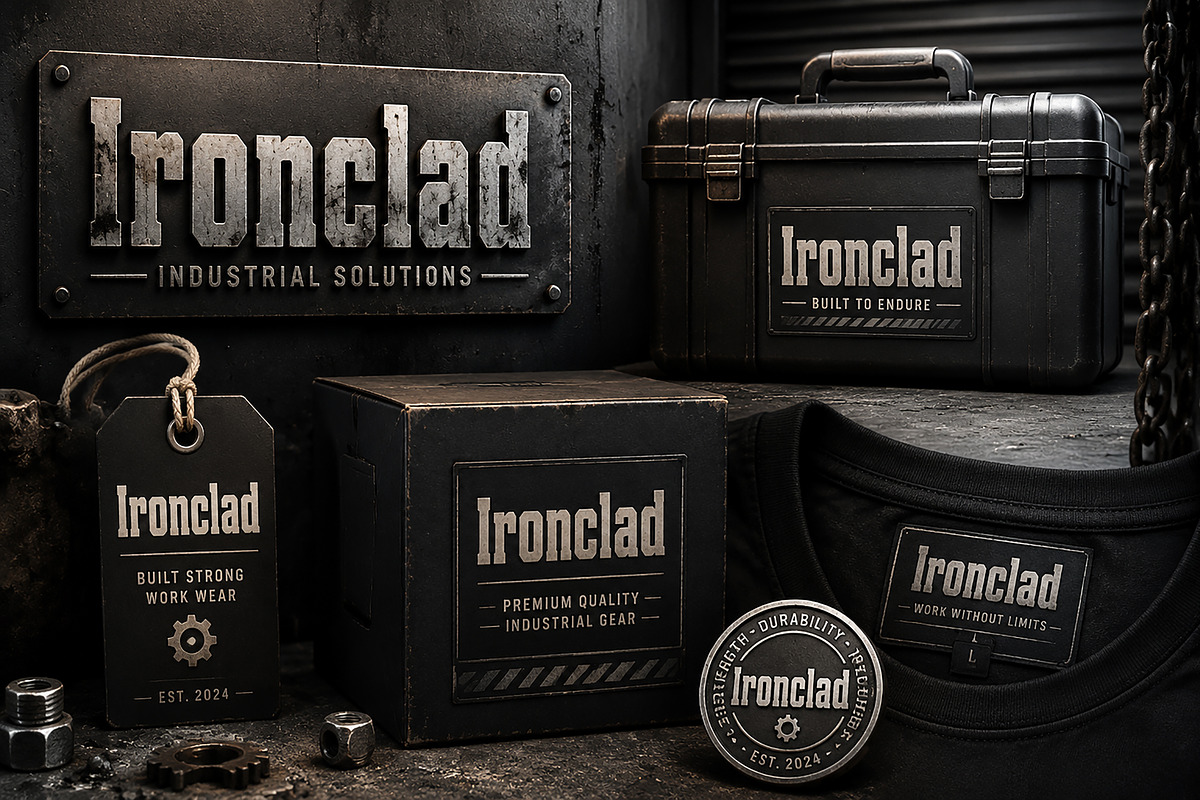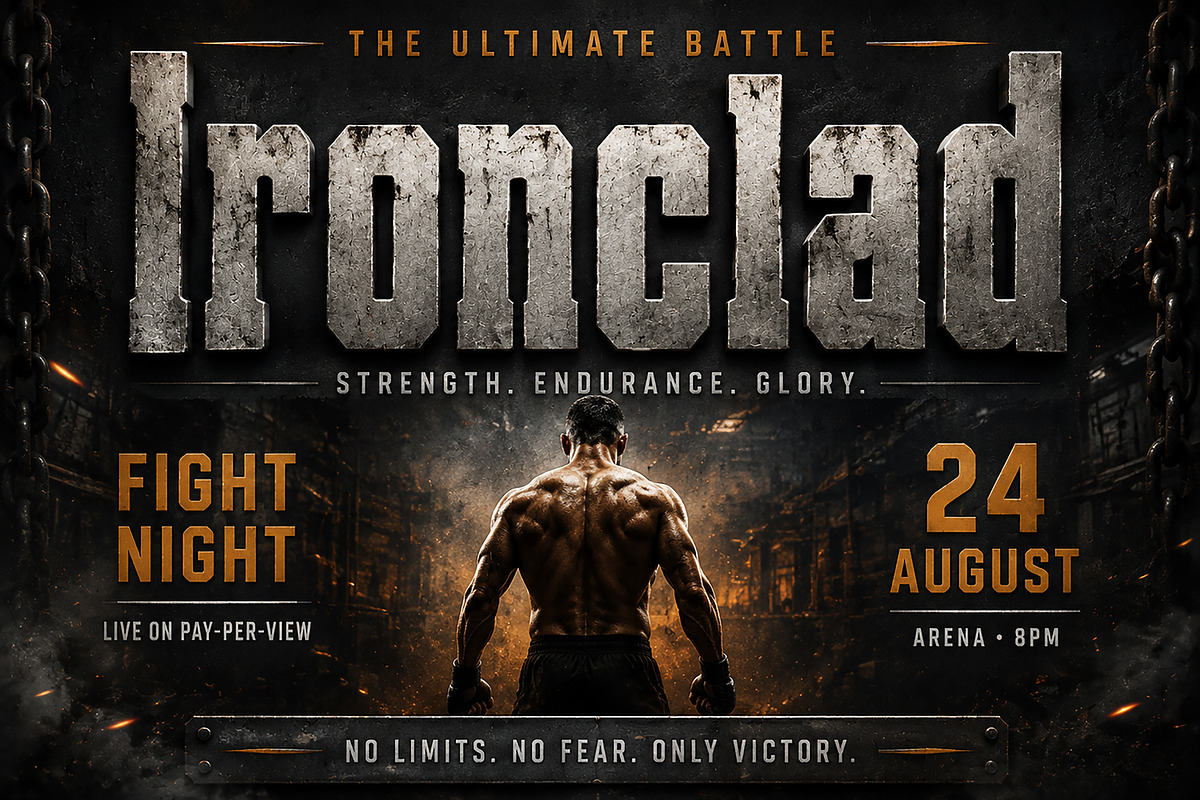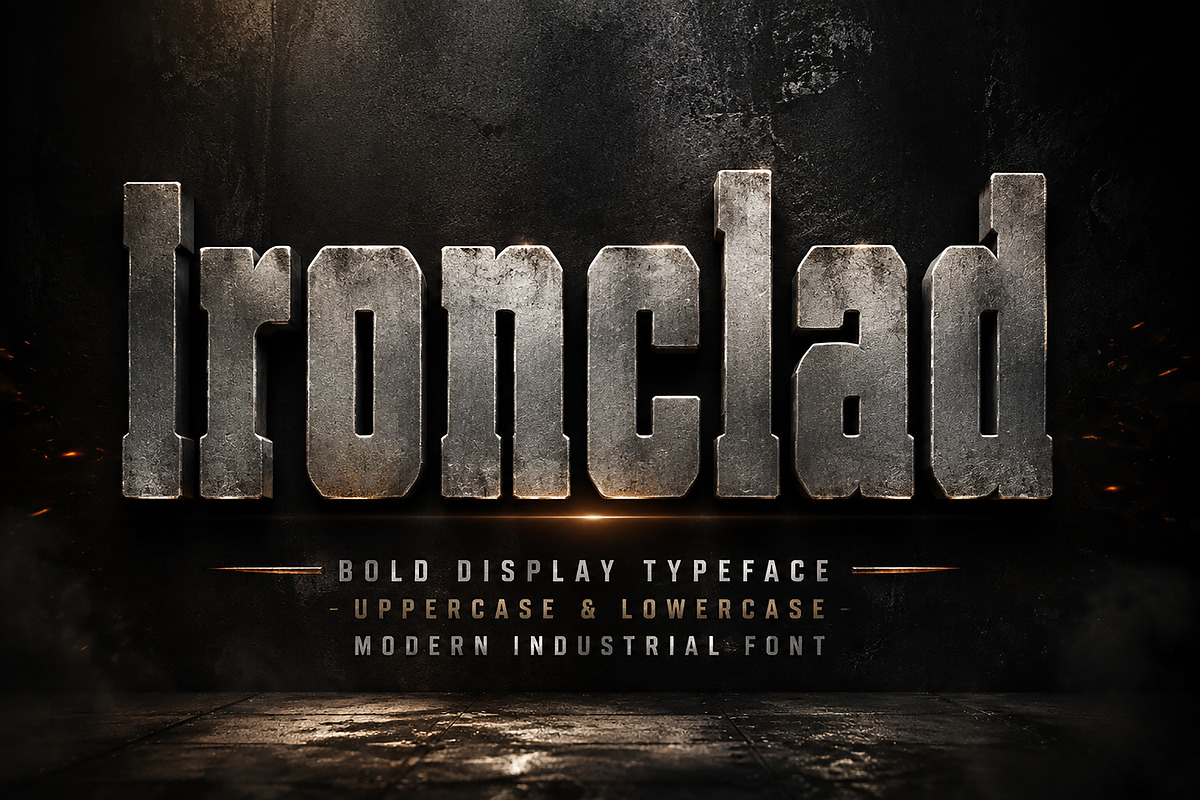
Ironclad
IRONCLAD – Strong Industrial Display Typeface
IRONCLAD is a bold and powerful display font designed for projects that require strength, confidence, and a modern industrial feel. Inspired by military aesthetics, engineering design, and heavy machinery, this typeface brings a strong visual impact to any creative project.
Perfect for logos, branding, posters, apparel design, gaming graphics, movie titles, sports designs, packaging, labels, and promotional artwork. Its bold structure and unique character make it ideal for designers looking to create a premium and memorable visual identity.
Create powerful headlines, tactical designs, futuristic branding, and eye-catching typography with IRONCLAD.
## Features
• Bold industrial display style
• Strong uppercase letter design
• Perfect for branding and logo projects
• Great for posters and headlines
• Suitable for apparel and merchandise design
• Ideal for gaming and sports graphics
• Works well for packaging and advertising projects